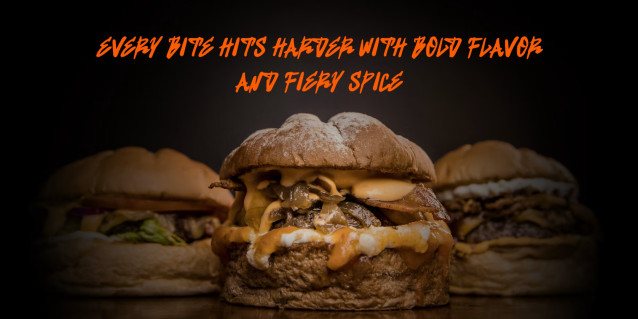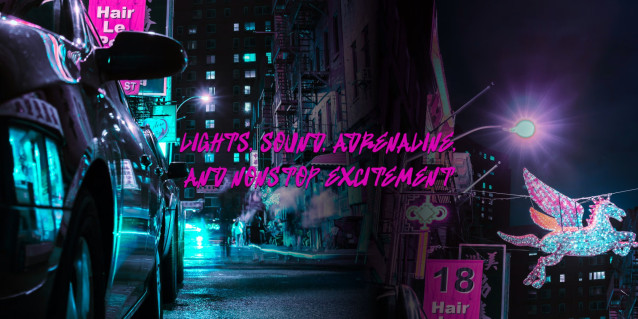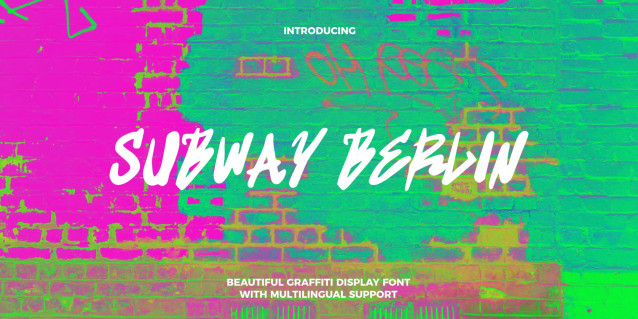
Subway Berlin Street Graffiti Font
Subway Berlin is a bold urban brush font inspired by street culture, graffiti art, and modern city aesthetics. Designed with energetic brush strokes and expressive handwritten details, this typeface delivers a strong, edgy, and authentic character perfect for creative branding projects.
Its rough yet stylish appearance makes Subway Berlin ideal for streetwear logos, food packaging, music posters, gaming thumbnails, social media content, advertising, and modern urban designs. The dynamic brush texture creates a raw handmade feel that instantly grabs attention and adds personality to every composition.
Whether you are creating bold headlines, eye-catching merchandise, or trendy promotional graphics, Subway Berlin brings a powerful street-style atmosphere with a modern creative touch.
Drawing inspiration from urban transit signage, retro architecture, and European underground culture, this font delivers a strong, gritty, yet modern aesthetic. It features solid geometric structures and clean lines, making it highly impactful for high-visibility designs. Subway Berlin is an excellent choice for street-wear branding, posters, album covers, headlines, merchandise, and contemporary editorial layouts. Whether you are aiming for a rugged urban vibe or a sleek, minimalist transit look, this typeface brings an authentic architectural and underground energy to your creative projects.